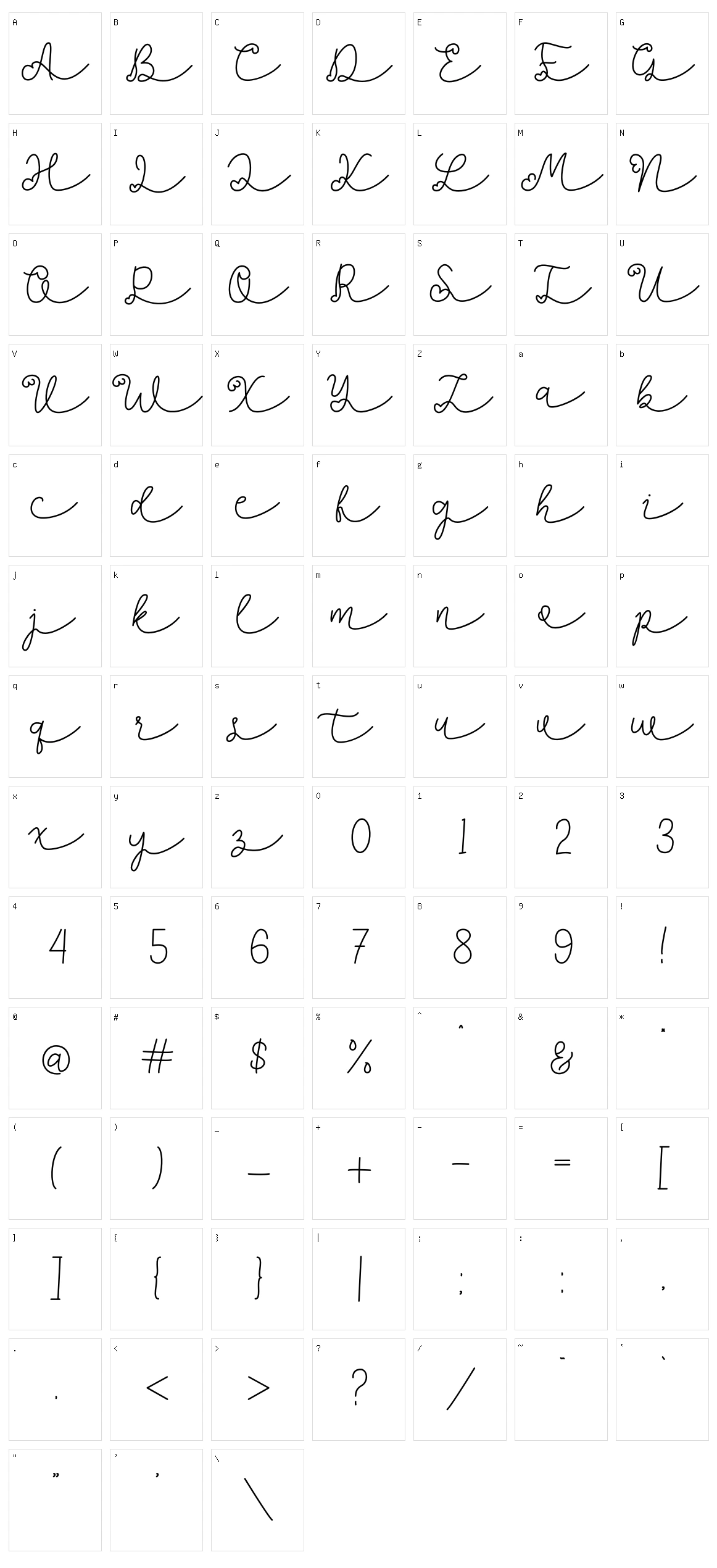
The free font Lovlia is carefully designed by Madatype Studio, showcasing a thoughtful balance of creativity and usability and falls under the Script font style. When you download the ZIP file, it contains only 43.3 KB of font files, making it lightweight and quick to download. Please review the license details below to understand permitted usage and distribution rights. If license information is not available, we recommend using this font for personal projects only or contacting the author directly for commercial usage permissions.